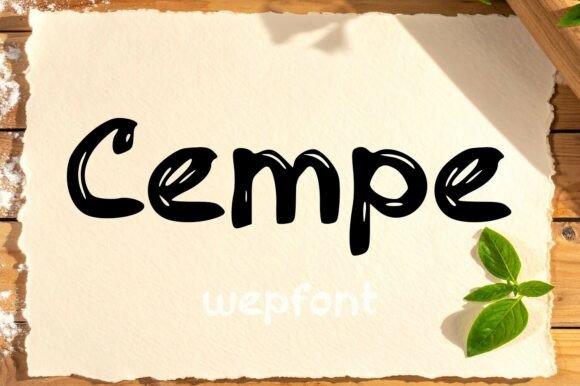
Discover the Enchanting Charm of Cempe Font: Elevate Your Designs with a Touch of Handwritten Warmth
Step into a world woven with enchanting charm and vivacious energy with the Cempe font. This script type is a sublime fusion of relaxed and graceful strokes, carefully hand-drawn to embody a heartfelt authenticity. The Cempe font is designed to amplify the radiance of your designs, summoning the beguiling beauty of unrestrained handwriting, coupled with warm, vivacious emotion.
The Artisanal Appeal of Cempe Font
The Cempe font paints a picture of a breezy, artisanal atmosphere, perfect for inviting a homegrown feel to your projects. Imagine how it will illuminate branding projects for intimate cafes, enchanting bakeries, organic food merchandise, or meticulously handcrafted products. With Cempe, you can add a personal touch to your designs, making them feel more approachable and relatable to your audience.
Crafting Captivating Designs with Cempe
Be captivated by Cempe’s innate charm, tailored for crafting captivating social media posts, stylish invitations, standout packaging, and appealing logos. This versatile font is perfect for designers and crafters looking to add a unique touch to their projects. Whether you’re creating visual content for a lifestyle blog, a children’s book, or a recipe card, Cempe is sure to make your designs stand out.
The Perfect Balance of Style and Readability
Cempe strikes a commendable balance between its distinct style and effortless readability, rendering it perfect for a wide range of applications. From menus and recipe cards to children’s literature and lifestyle blogs, this font is designed to make your content shine. With Cempe, you can add a touch of elegance and sophistication to your designs without sacrificing clarity or legibility.
Applications of Cempe Font
- Branding and Packaging: Use Cempe to create eye-catching logos, labels, and packaging for your products. Its artisanal appeal makes it perfect for small businesses and crafters.
- Social Media and Blogging: Add a touch of personality to your social media posts and blog content with Cempe. Its unique style is sure to make your content stand out in a crowded online space.
- Stationery and Invitations: Create beautiful invitations, greeting cards, and stationery with Cempe. Its elegant and refined aesthetic makes it perfect for special occasions.
- Children’s Literature and Education: Use Cempe to create engaging and interactive children’s books, educational materials, and activity sheets.
Why Choose Cempe Font?
So, why choose Cempe font for your next project? Here are just a few reasons:
- Unique and Hand-Drawn: Cempe is a carefully hand-drawn font, giving it a unique and authentic feel.
- Versatile: Cempe is perfect for a wide range of applications, from branding and packaging to social media and blogging.
- Easy to Read: Despite its unique style, Cempe is effortless to read, making it perfect for body text and captions.
- Artisanal Appeal: Cempe has a charming, artisanal appeal that adds a personal touch to your designs.
In conclusion, the Cempe font is a versatile and charming script type that can elevate your designs with a touch of handwritten warmth. Its unique blend of relaxed and graceful strokes makes it perfect for a wide range of applications, from branding and packaging to social media and blogging. With Cempe, you can add a personal touch to your designs, making them feel more approachable and relatable to your audience. So why not give Cempe a try and see how it can transform your designs?